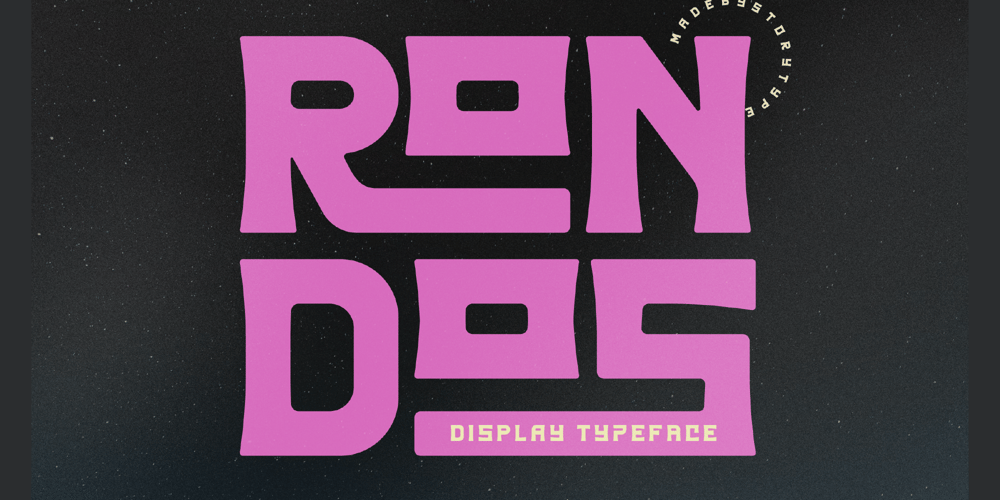
RONDOS Font Family was designed by Heru Utama Putra and published by Letterena Studios. RONDOS contains 2 styles and family package options. Rondos is a squared lettered and robotic styled display font. This font is PUA encoded which means you can access all glyphs and swashes with ease!